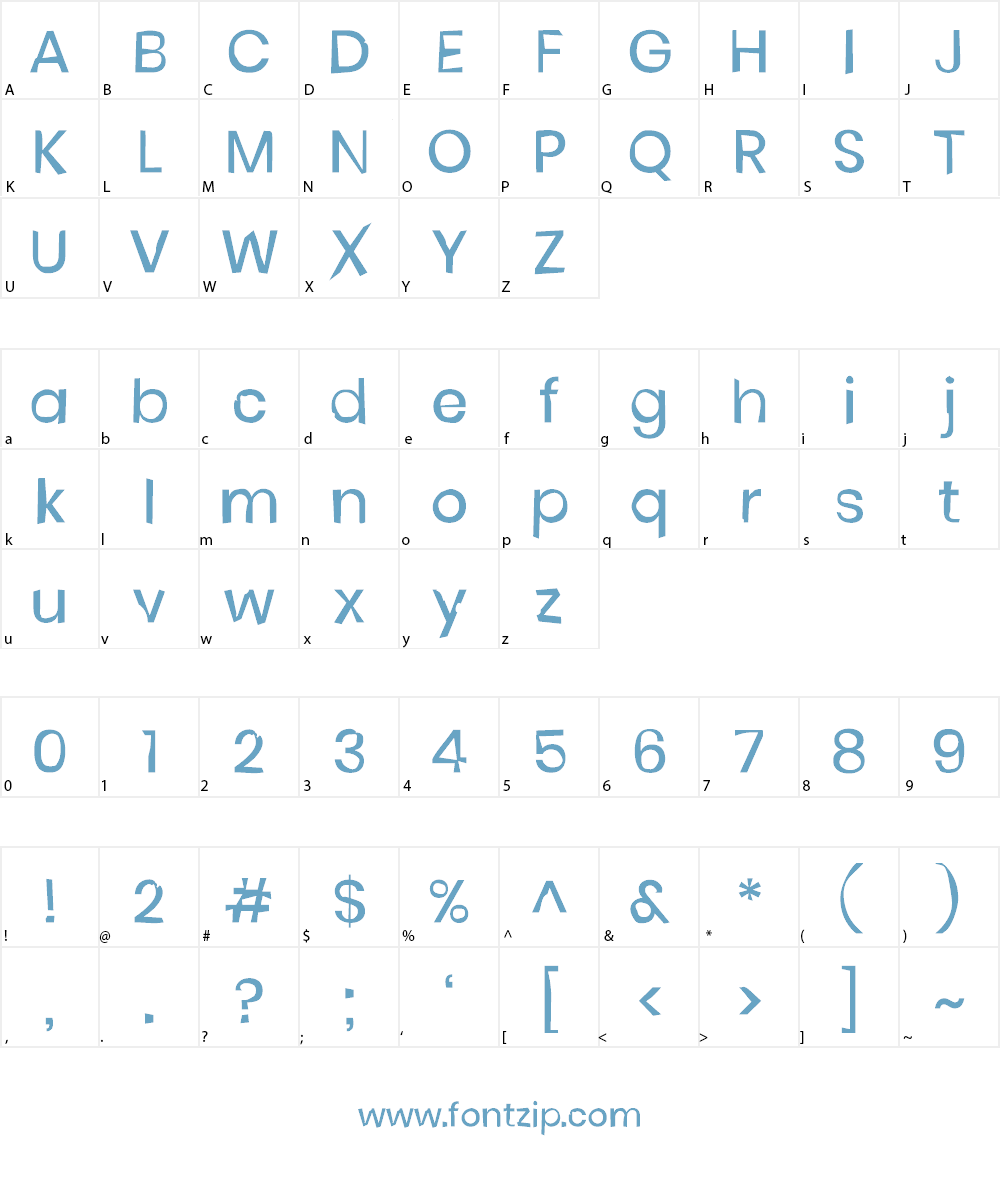
Avontuur Garde Gothic is a distorted font with a neat, clean Katakana letters. The letterforms are based on Indian Type Foundry's Poppins, while the Katakana letters are original